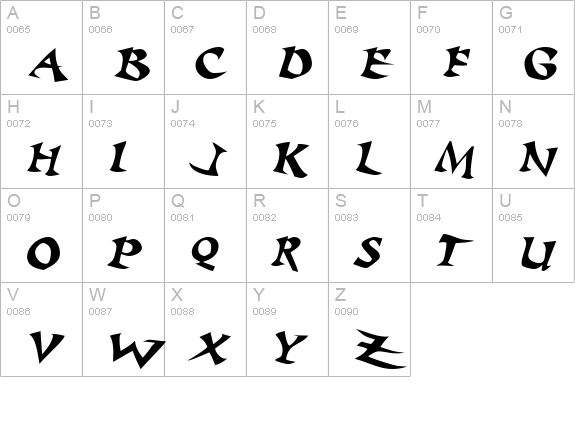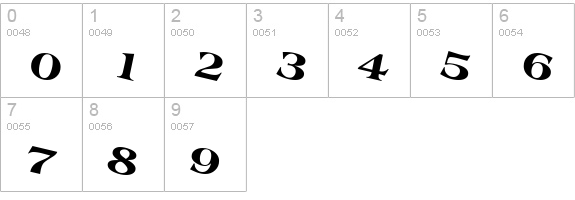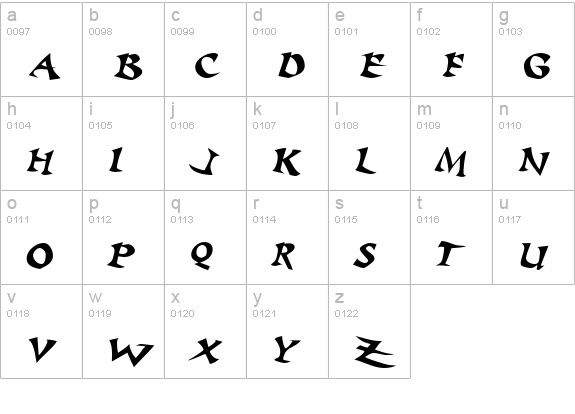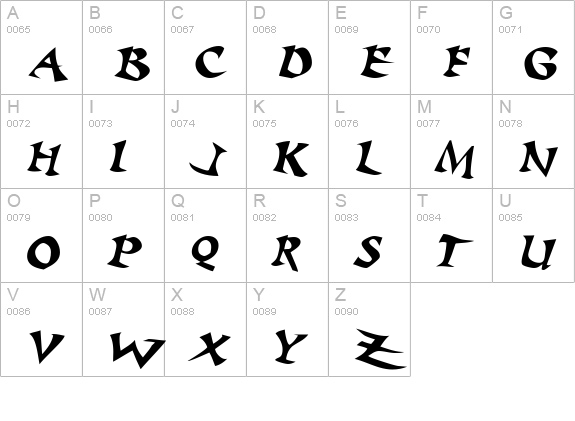
Baratz Italic Font Details
Baratz Italic is a distinctive, italic variant in the Baratz typeface family \xE2\x80\x94 well suited to design and typography projects.
Baratz Italic font effortlessly combines elegance and modern sophistication, making it the perfect choice for any design project. Its unique italic style adds a touch of flair and creativity to any text, making it stand out from the rest. With its smooth curves and graceful strokes, Baratz Italic exudes a sense of refinement and class. The best part? Baratz Italic font is completely free to download at FontsMarket.com, making it accessible to designers, creatives, and enthusiasts alike. Whether you're working on a logo, branding materials, or a website design, Baratz Italic font will elevate your project to the next level. Embrace the beauty and versatility of Baratz Italic font today and unleash your creativity like never before.